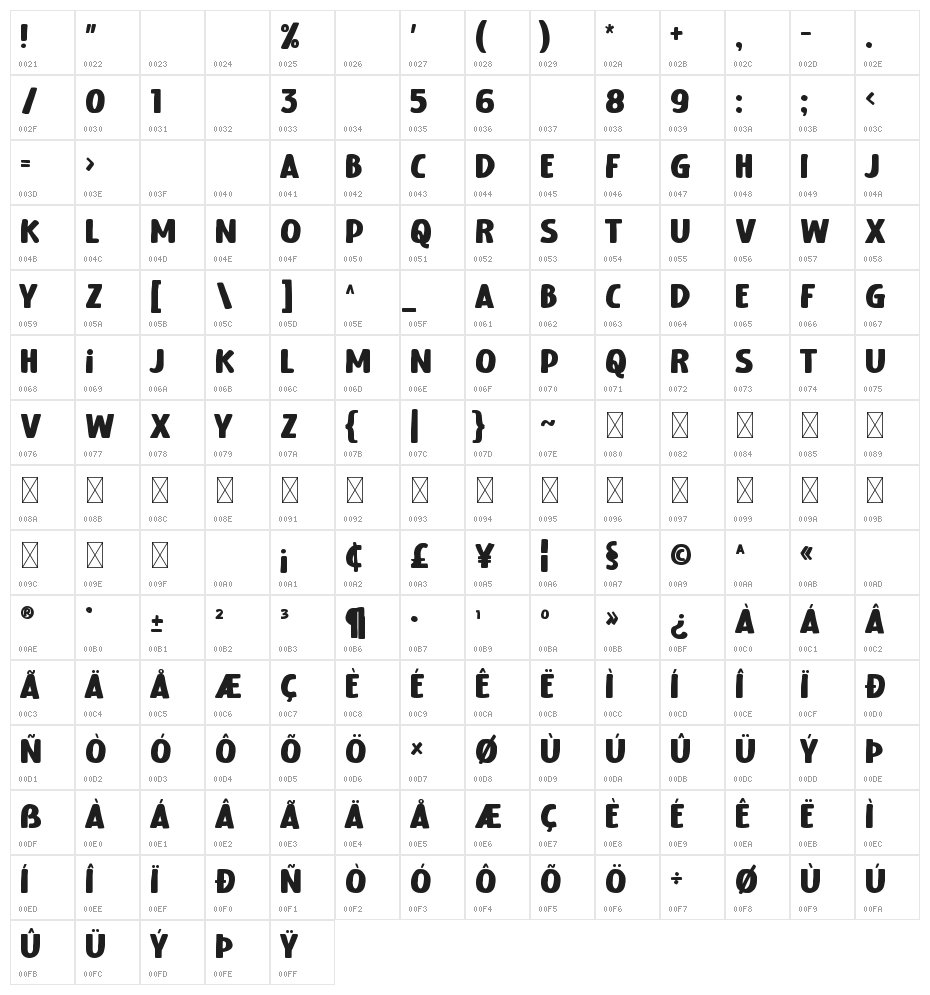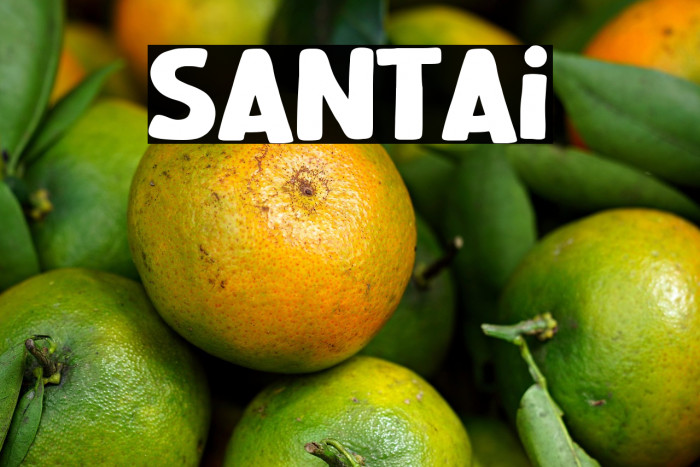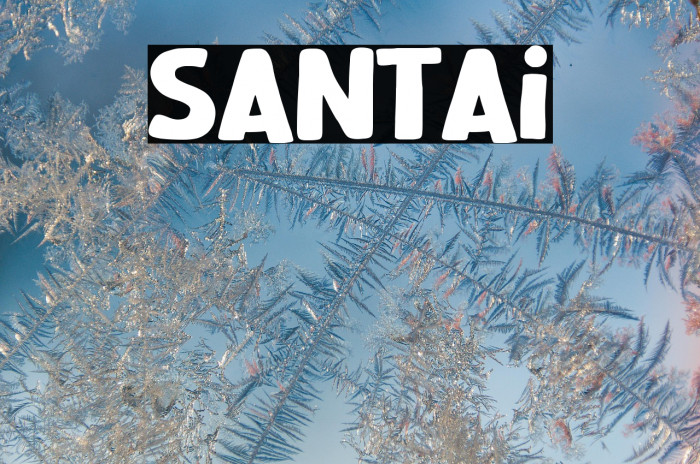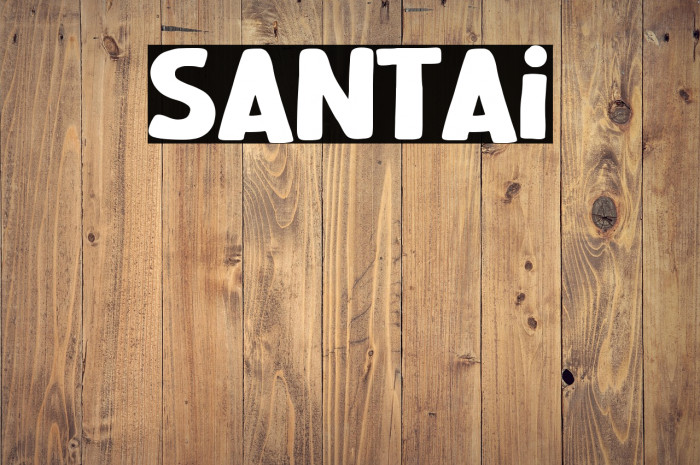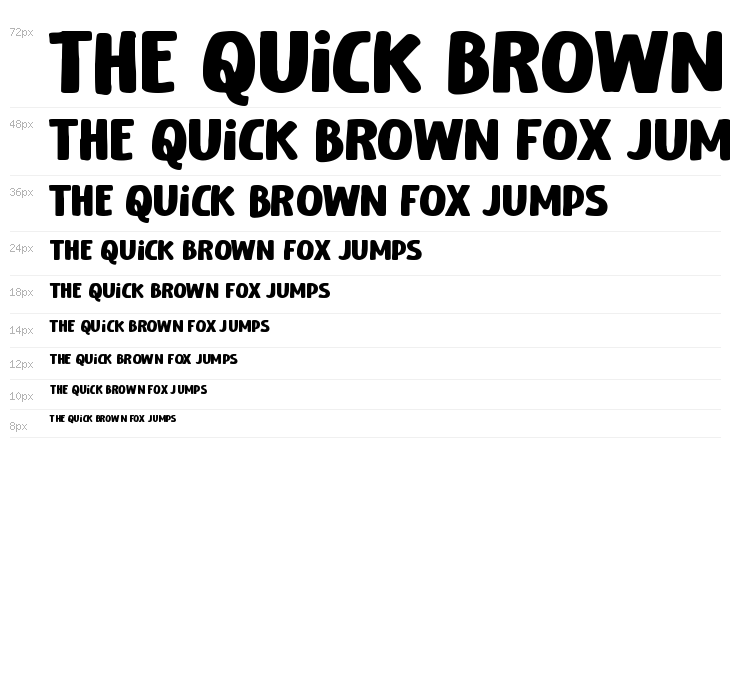
Santai Font
Santai Description
This font features bold, rounded characters with a playful and friendly appearance. The letters are thick and have a consistent stroke width, giving them a strong presence. The overall style is informal and approachable, making it suitable for casual and fun designs. The characters are slightly condensed, which adds to the compact and cohesive look of the text. The font includes both uppercase and lowercase letters, as well as numbers and a variety of special characters, ensuring versatility in usage.
| Proposed Projects | Ideal for children's books, playful branding, casual posters, and social media graphics. |